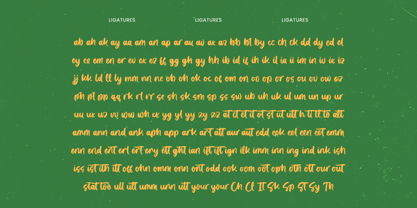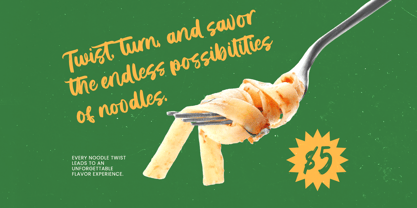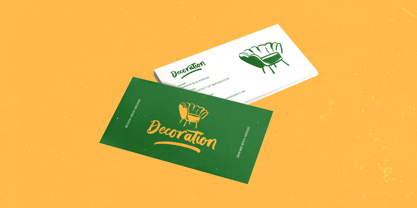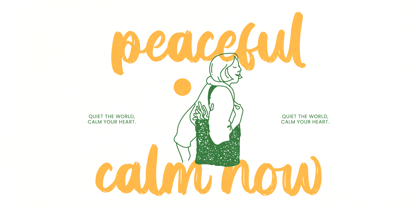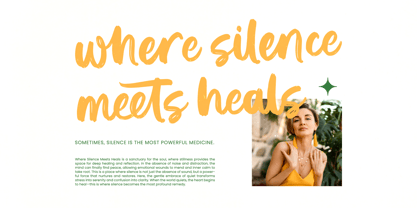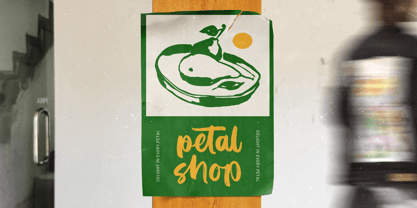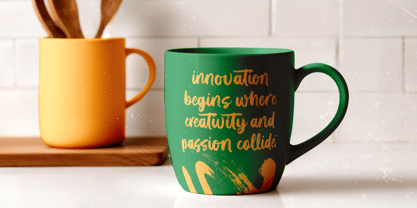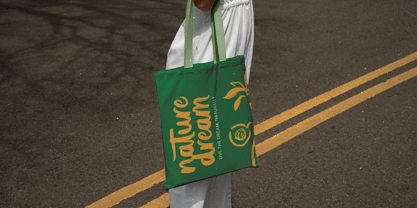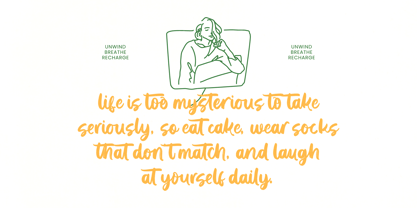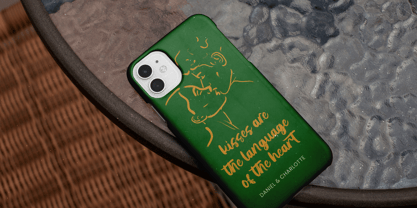
Solitude Mindful
par Letterena Studios
La famille de polices Solitude Mindful a été conçue par Heru Utama Putra et publiée par Letterena Studios. Solitude Mindful contient 2 styles et options de package familial. En savoir plus sur cette famille
Solitude Mindful - Bold Brush Font , Solitude Mindful is a bold brush script font crafted with expressive hand-painted strokes, organic texture, and a relaxed handwritten flow that feels warm, personal, and emotionally rich. The letterforms are thick, textured, and naturally imperfect, capturing the authentic character of real brush lettering while remaining readable and balanced for display use. With 190 ligatures, 62 alternates, 6 swashes, and a total of 590 glyphs, Solitude Mindful offers extensive typographic flexibility for creating unique, handcrafted compositions. This font is ideal for quotes, posters, branding, packaging, book covers, lifestyle content, social media graphics, journaling designs, and creative projects that seek a mindful, artistic, and human touch. Designed for both digital and print use, Solitude Mindful works best as a display brush font that delivers personality, warmth, and expressive charm.
Concepteurs: Heru Utama Putra
Fonderie: Letterena Studios